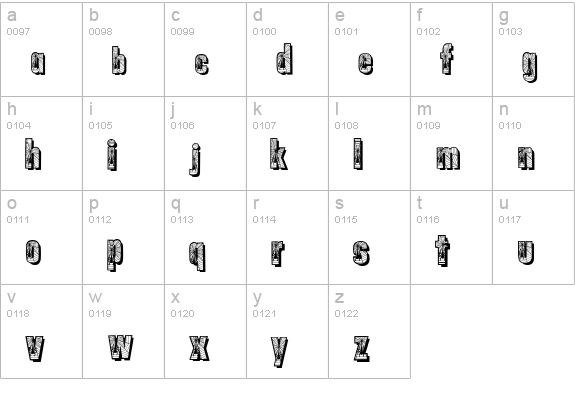
Introducing the sensational Spiderman font, a true testament to the iconic web-slinging superhero. This remarkable font captures the essence of Spiderman's adventurous spirit, combining sleek lines and bold curves to create a dynamic and captivating typography. With every letter reminiscent of Spiderman's agile movements, this font brings a sense of excitement and energy to any design project. But what sets the Spiderman font apart from the rest? It's the fact that it is absolutely free! Yes, you read that right. This incredible font is freely available to download at FontsMarket.com, allowing designers, fans, and Spiderman enthusiasts alike to add a touch of superhero magic to their creations without any cost. Whether you're designing a poster, creating a comic book, or simply adding a playful touch to your personal projects, the Spiderman font is the perfect choice. Its versatility and unique style make it suitable for a wide range of applications, from digital designs to print materials. So, what are you waiting for? Embrace the power of Spiderman and download the Spiderman font today, completely free of charge, only at FontsMarket.com. Unleash your creativity and let Spiderman inspire your designs with this incredible font.